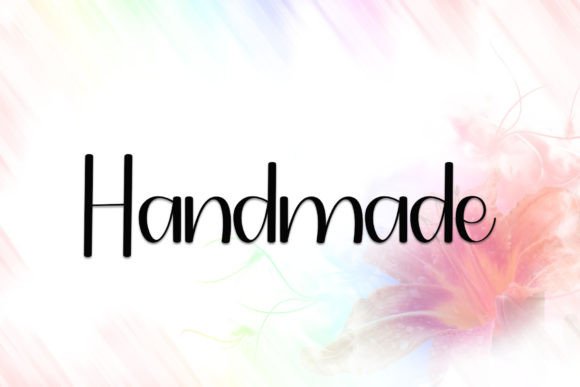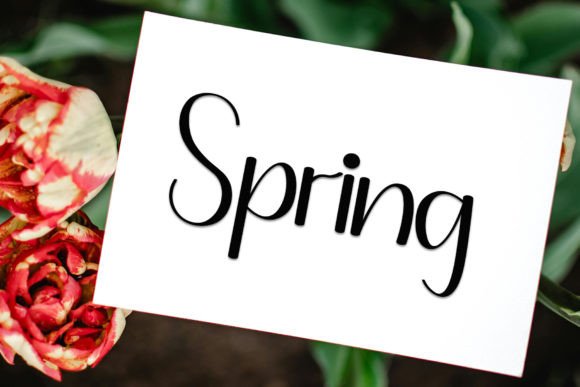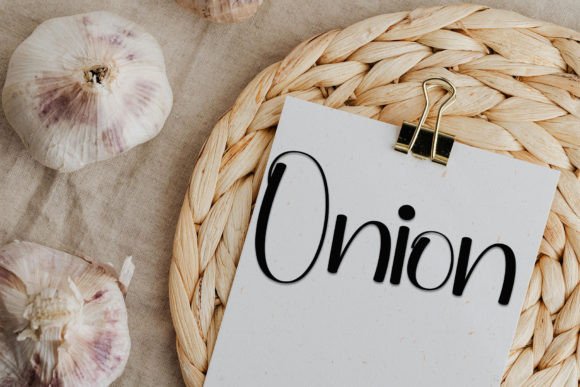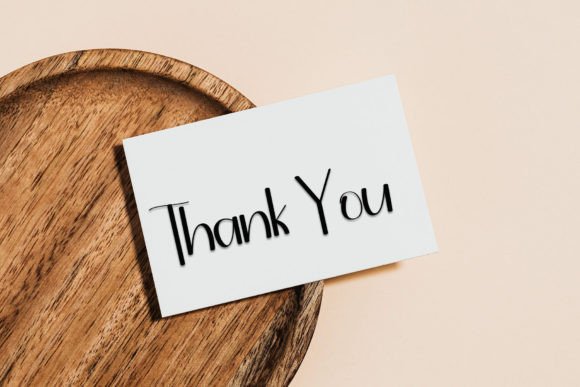
The Perfect Blend of Elegance and Timelessness
You know that moment when you’re brainstorming a new project, and you’re desperate for the perfect font to bring your vision to life? The search is over. Enter Andelucia Font, a stunning handwritten font that effortlessly combines contemporary style with timeless classic calligraphy. Its impeccable form and sophisticated atmosphere make it the ultimate addition to any design project.
Whether you’re a seasoned designer or just starting out, Andelucia Font is an invaluable asset to your toolkit. With its versatility and elegance, it’s the perfect choice for everything from wedding invitations to brand logos. Andelucia Font adds a touch of sophistication and class to any design, making it a valuable addition to your font collection.
Andalucia Font Key Features
- Font Family: Andalucia, Andalucia Regular, Andalucia Italic, Andalucia Bold, Andalucia Bold Italic
- Unique Characteristics: Andalucia Font features a unique blend of traditional and modern elements, with intricate details and ornate flourishes, making it suitable for formal invitations, certificates, and luxury branding
- Font Weight: 5 weights, ranging from Light to Black, with matching italics and bolds
Andelucia Font Review
Overall, I have mixed feelings about the Andelucia font. While it has its charming aspects, it also has some notable limitations. Let’s dive in.
- Unique, elegant style: Andelucia has a distinct, luxurious feel that sets it apart from more common fonts.
- Legibility: Despite its decorative elements, the font is surprisingly readable, especially at larger sizes.
- Comprehensive language support: Andelucia includes a wide range of languages, making it a versatile choice for various projects.
- Spacing issues: At smaller font sizes, the letters can become cramped and difficult to read.
- Not ideal for body text: Andelucia’s intricate design makes it better suited for headlines and titles rather than large blocks of text.
- Lack of bold weight: The font’s bold weight is not as robust as I would have liked, which can make it harder to read at smaller sizes.
Overall, Andelucia is a beautiful font that excels in certain situations, but its limitations hold it back from being a go-to choice for everyday use. If you’re looking for a unique, eye-catching font for a specific project, Andelucia might be the perfect fit. However, for general typography needs, I would recommend exploring other options.
Practical Application Guide for Andelucia Font
Andelucia Font is a elegant and sophisticated font that is perfect for:
- Headings and titles for magazines and publications
Remember to use the font consistently throughout your design to create a cohesive look.
Inter is a versatile and highly legible sans-serif font designed for digital interfaces. It’s ideal for use in body text, headings, and titles. Inter is a great alternative to Andelucia Font as it offers a more neutral and adaptable design, making it suitable for a wide range of projects and applications.